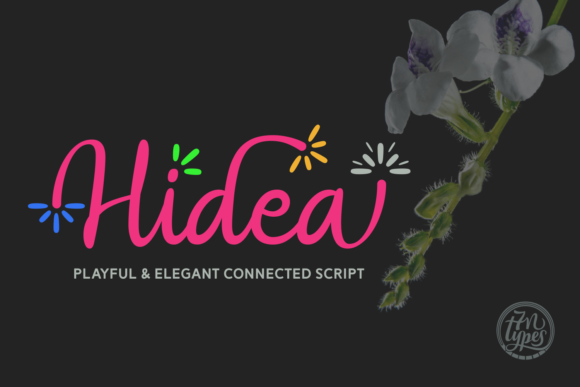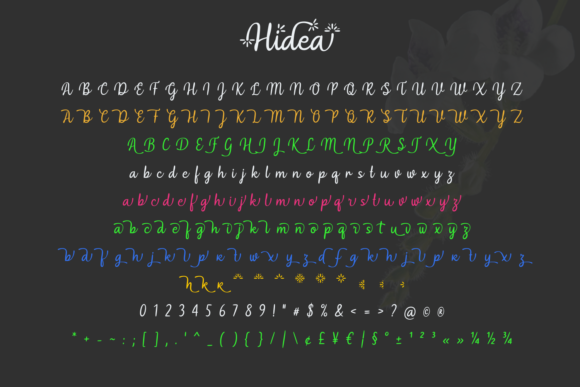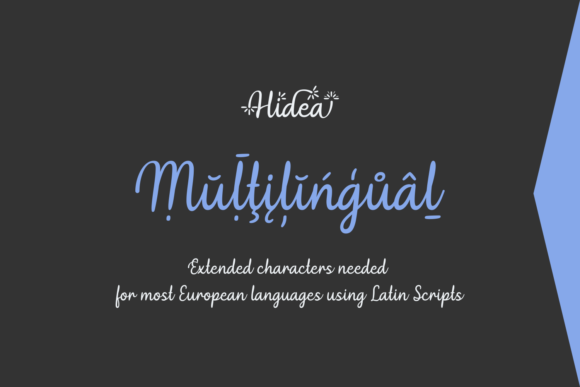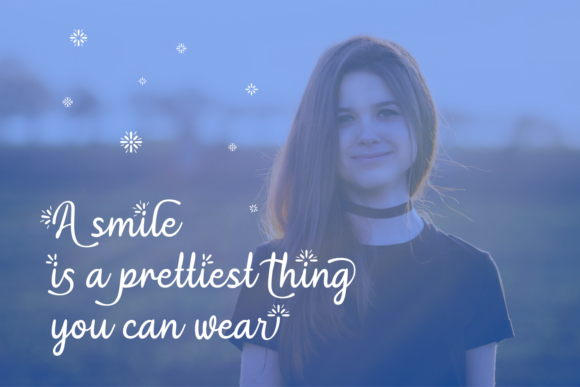
About Hidea Font
Hidea is a gorgeous script font, crafted for displays in both print and digital projects. This font comes with stylistic, swashy alternates so you can create typgraphic projects with a logotype appeal.